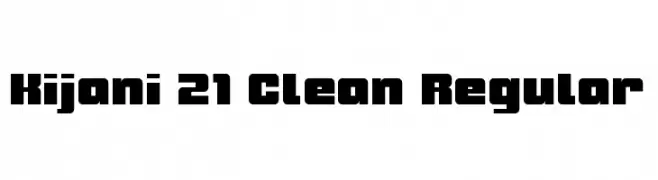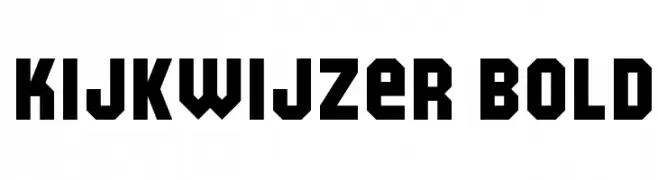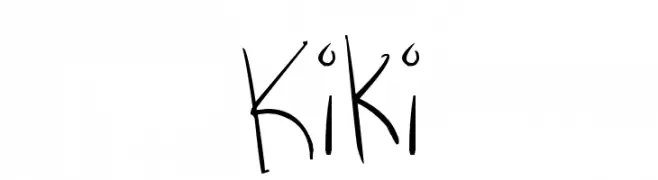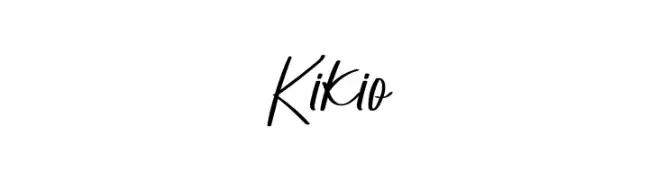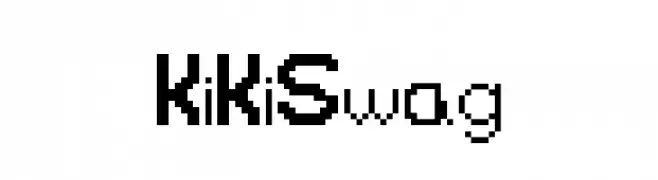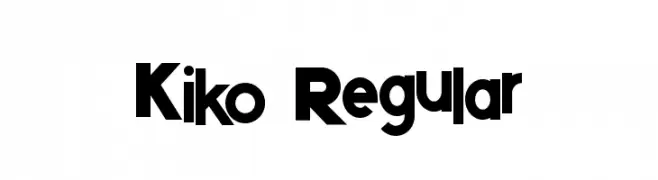
A bold, geometric sans-serif font with a modern and assertive style.
An elegant script font with flowing, cursive letters and decorative flourishes.
A dynamic brush-style font with expressive, hand-painted strokes.
A playful, casual handwritten font with flowing strokes and a personal touch.
Elegant handwritten script font.
A bold, geometric font with a modern and clean design.
A bold, geometric font with a modern and clean aesthetic.